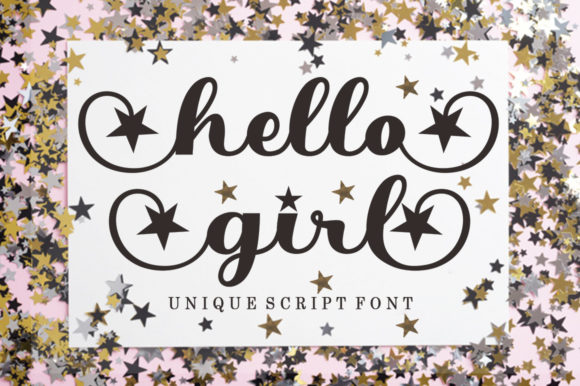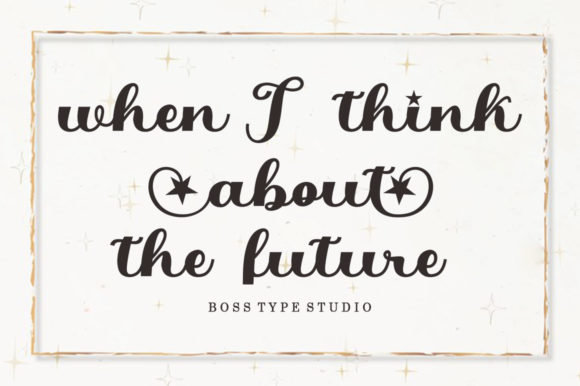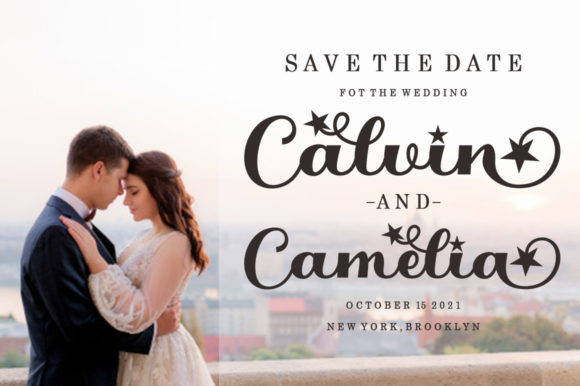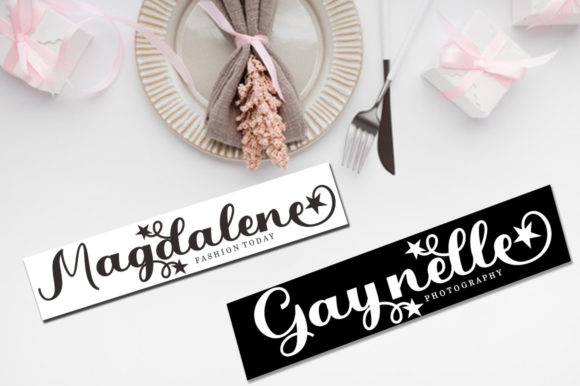
Hello Girl is a truly unique handwritten font that has been masterfully designed to elevate your creative ideas to new heights. With its distinctive style and carefully crafted letterforms, this font is sure to become a favorite in your collection.
The beauty of Hello Girl lies in its ability to capture attention and convey a sense of individuality. The hand-drawn quality and intricate details of each letter give it a personal touch that sets it apart from other fonts. Whether you’re using it for branding, social media posts, invitations, or any other design project, Hello Girl will make a lasting impression.
One of the standout features of Hello Girl is its PUA encoding, which allows you to easily access all of the glyphs and swashes available in the font. This means you have complete flexibility to customize and embellish your designs with the unique characters and decorative elements provided. By utilizing these options, you can create truly personalized and eye-catching compositions.
Hello Girl is suitable for a wide range of creative projects. Its versatility allows it to be used in various contexts, from playful and whimsical designs to more elegant and sophisticated creations. The font adapts well to different themes and aesthetics, making it a valuable asset for your design toolkit.
The legibility of Hello Girl is also worth noting. While it has a distinct and unconventional style, the letterforms are carefully crafted to ensure readability and clarity. This means that your messages and branding will be effectively communicated to your audience, while still maintaining the unique and artistic flair of the font.
In summary, Hello Girl is an incredibly unique handwritten font that will take your creative ideas to new heights. Its distinctive style and carefully designed letterforms make it a standout choice for any design project. With its PUA encoding, you have easy access to a variety of glyphs and swashes, allowing for customization and personalization. Explore the possibilities with Hello Girl and unleash your creativity to create truly memorable designs.